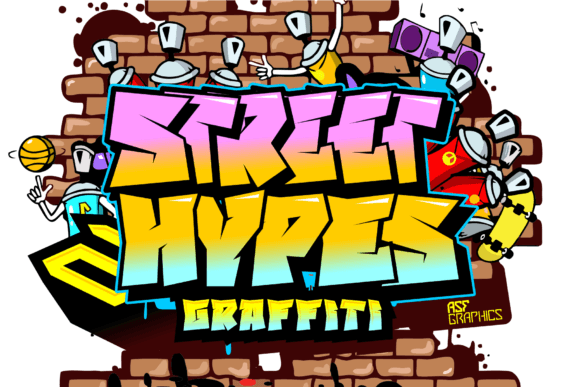
Introducing Street Hypes Graffiti Font, a captivating display font that will ignite your creativity and leave a lasting impression on your audience. Inspired by the vibrant street writing of New York, this font is the result of the creative hands of graffiti addicts.
Street Hypes Graffiti Font is not your ordinary font. It breaks free from the conventional norms and embraces an incredibly unique design that will make your projects stand out from the crowd. Whether you're working on a branding or packaging project, this font will add an urban, edgy vibe that will captivate your target audience.
Unleash your imagination and let Street Hypes Graffiti Font bring your ideas to life. Its bold and energetic strokes will inject an unrivaled sense of dynamism into your designs. Every letter is meticulously crafted to evoke a sense of urban authenticity, making it the perfect choice for those who want to make a bold statement.
This font is not just a visual treat; it also packs a punch when it comes to versatility. With its wide range of characters, including uppercase and lowercase letters, numbers, and punctuation marks, Street Hypes Graffiti Font gives you the freedom to express yourself in various creative projects. From logos and posters to social media graphics and merchandise, this font has got you covered.
But Street Hypes Graffiti Font is more than just a stylish addition to your design arsenal. It is a powerful tool that connects with your audience on an emotional level. It sparks a sense of nostalgia, reminding us of the vibrant street art culture that has shaped cities around the world. By using this font, you not only tap into the visual appeal of graffiti but also evoke the rebellious spirit associated with it.
Created by asf-graphics, Street Hypes Graffiti Font is a masterpiece that combines artistry with functionality. Its seamless readability ensures that your message is conveyed effortlessly, while its captivating design leaves a memorable impression. Whether you're aiming to attract a young and trendy audience or evoke a sense of urban grit, this font is your go-to choice.